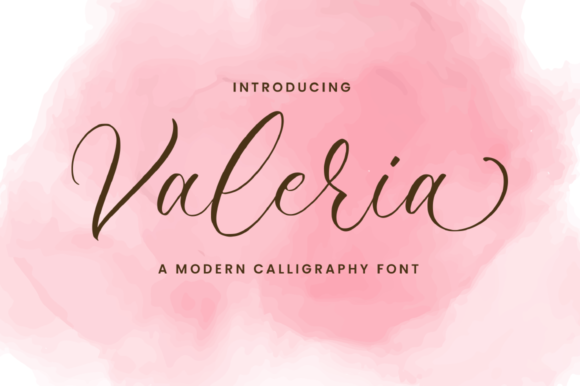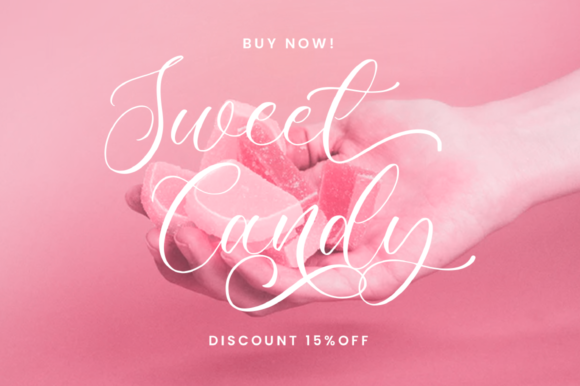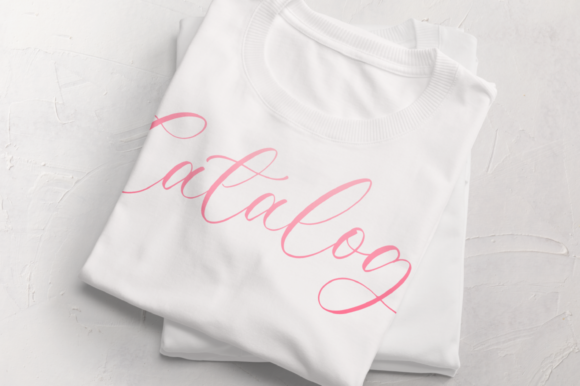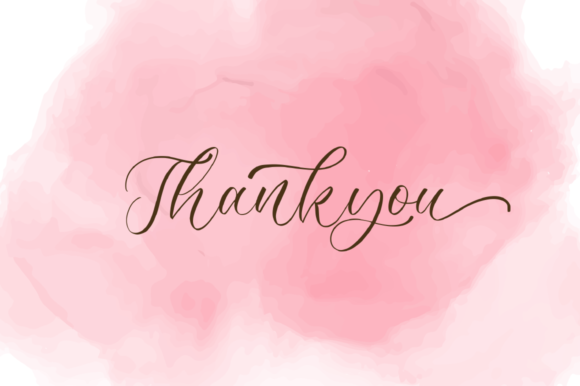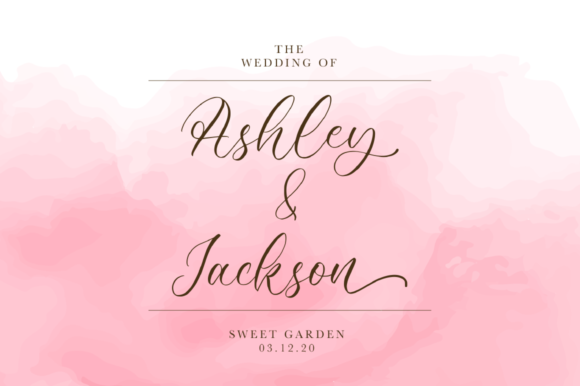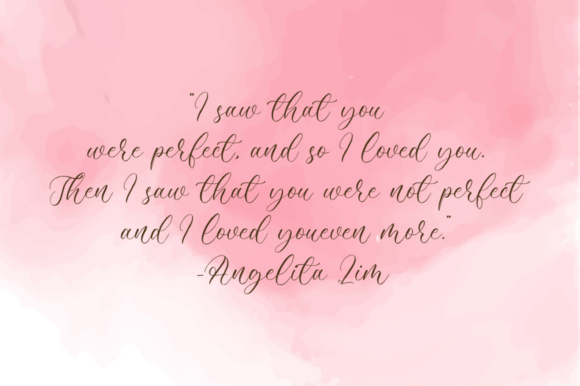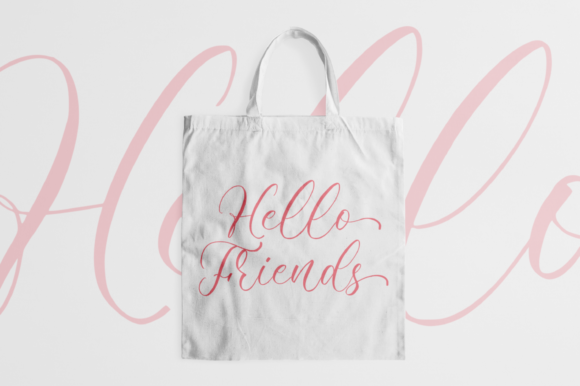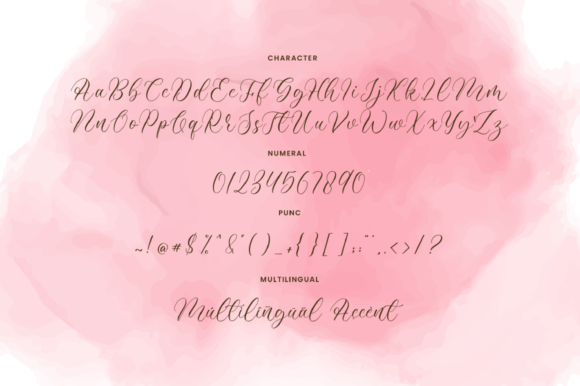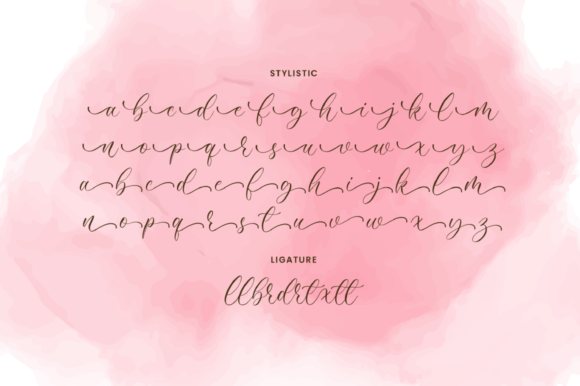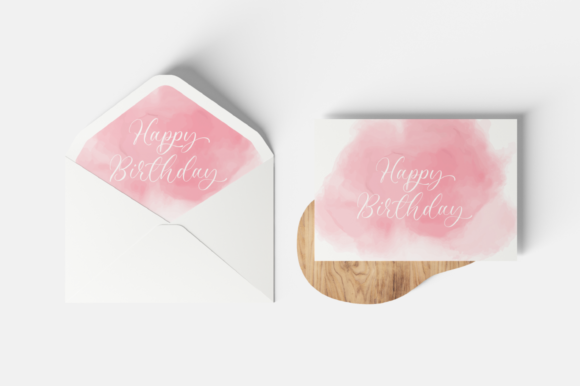
About Valeria Font
Valeria is a lovely script font featuring charming, playful characters that seem to dance along the baseline. This font is PUA encoded which means you can access all glyphs and swashes with ease!